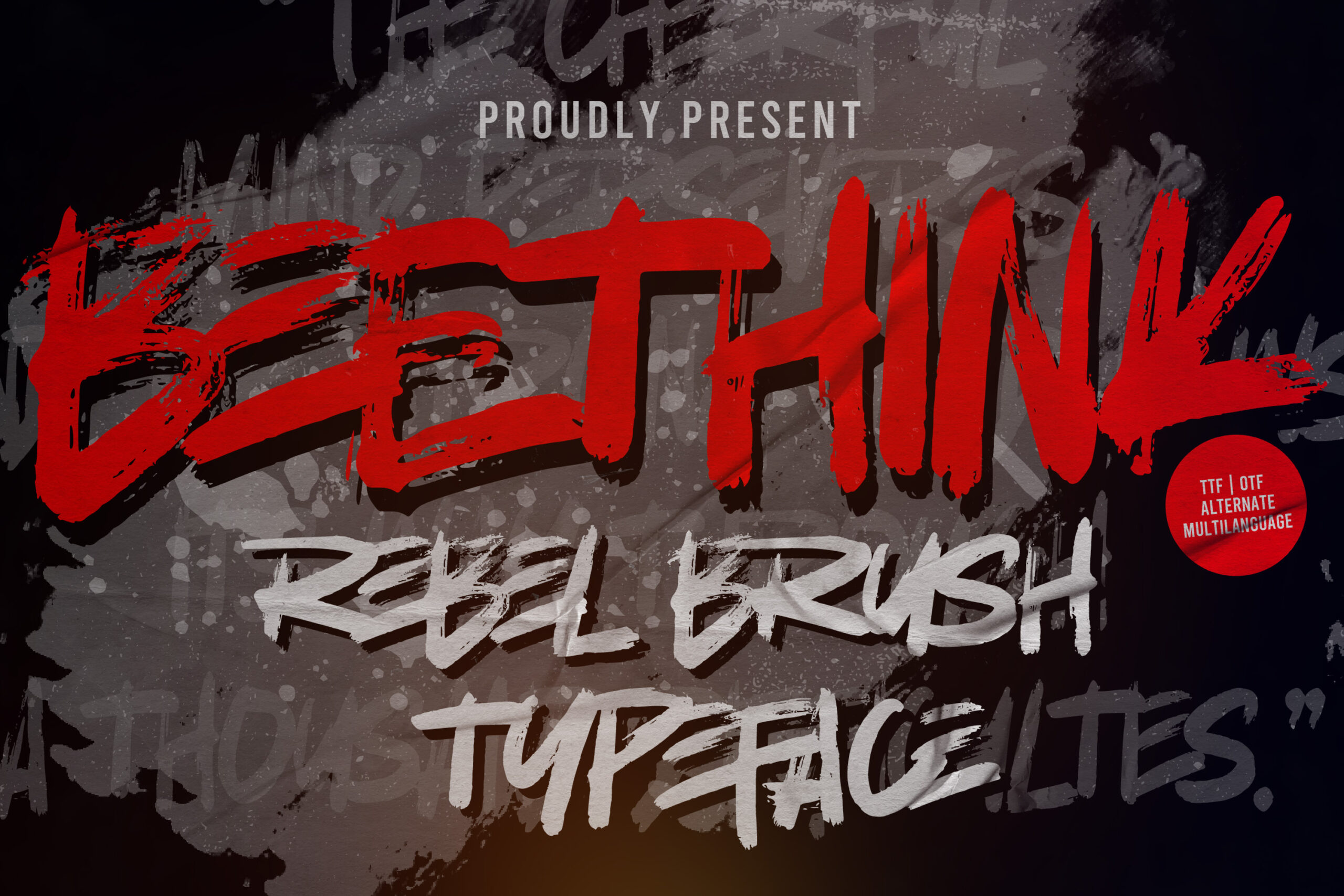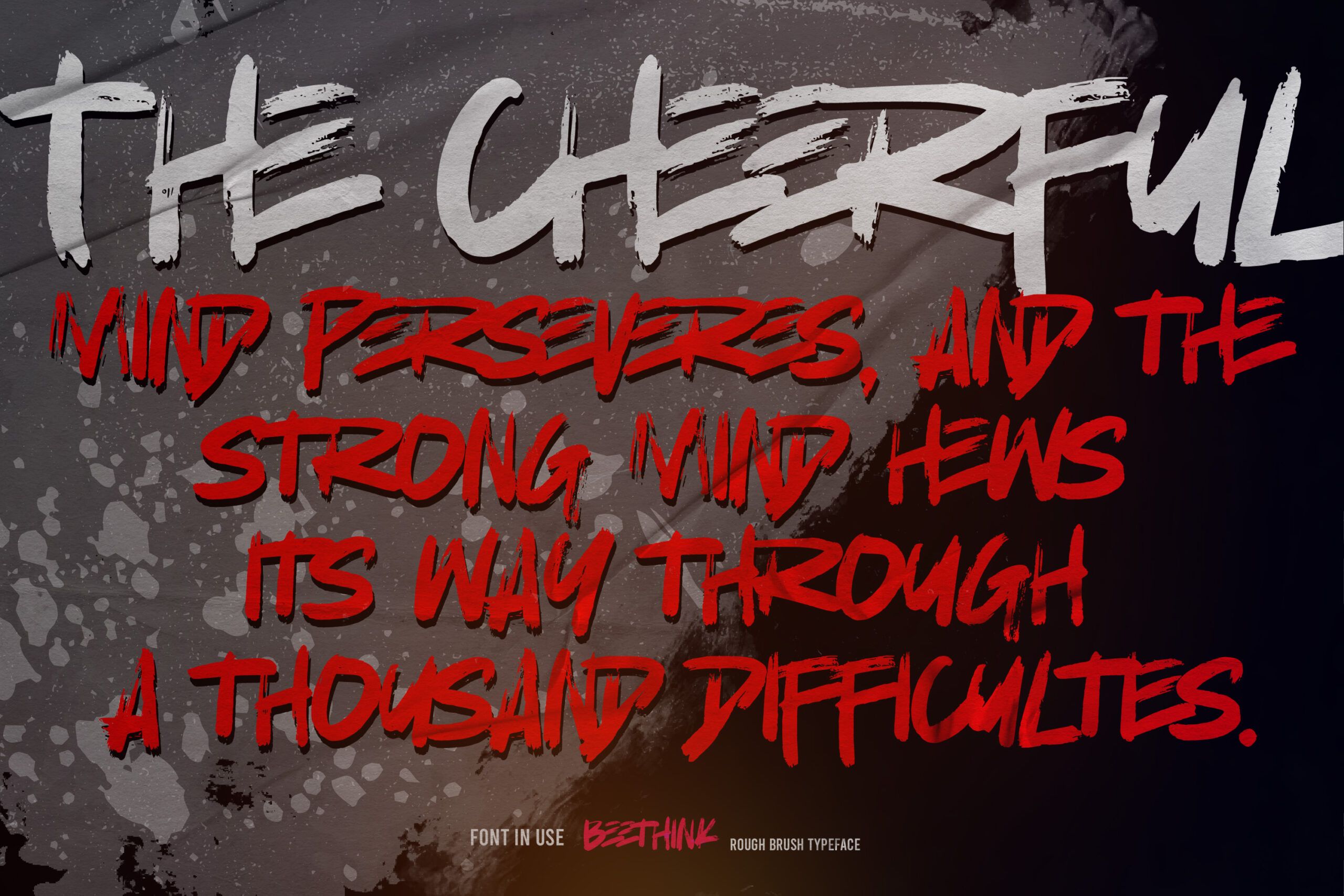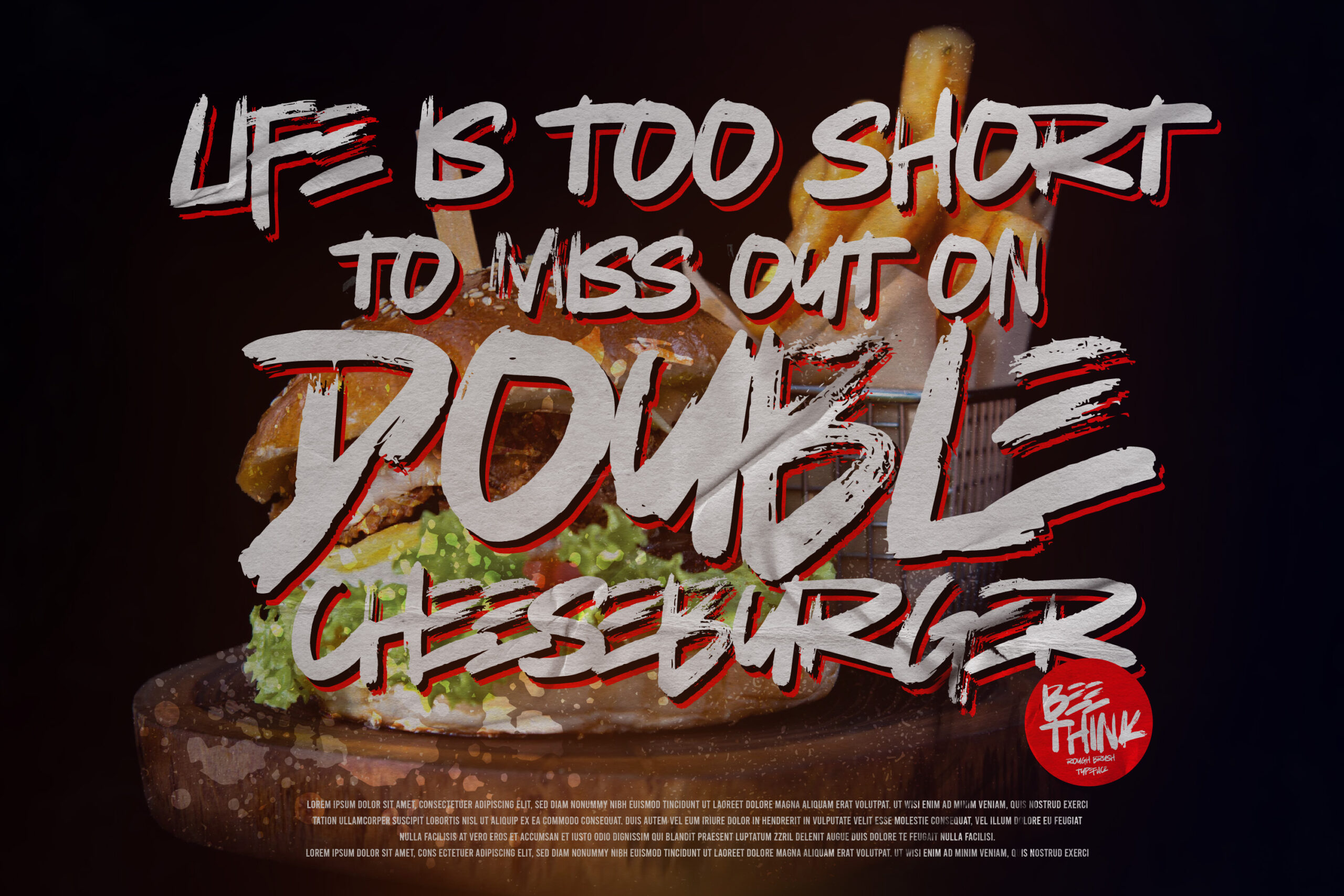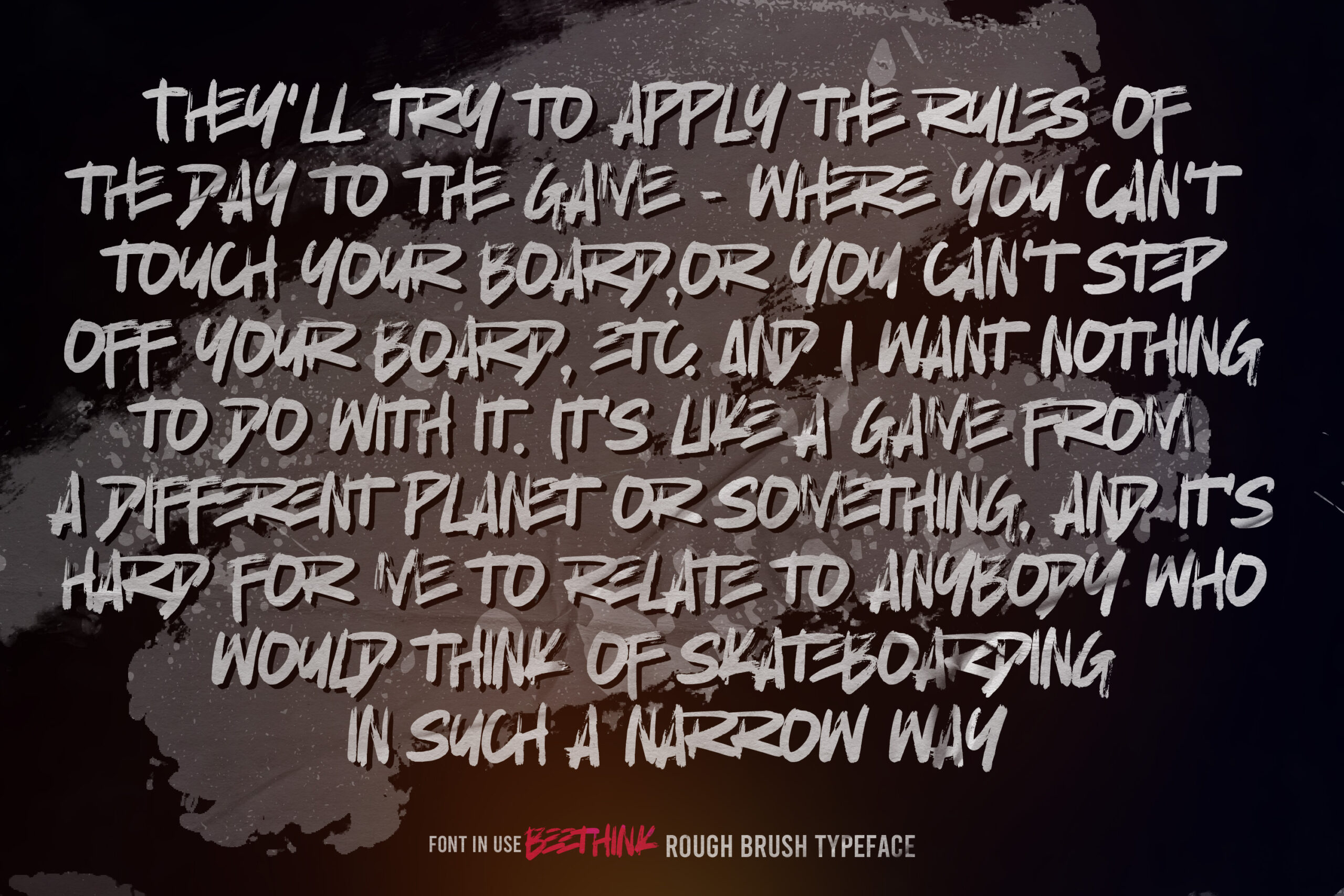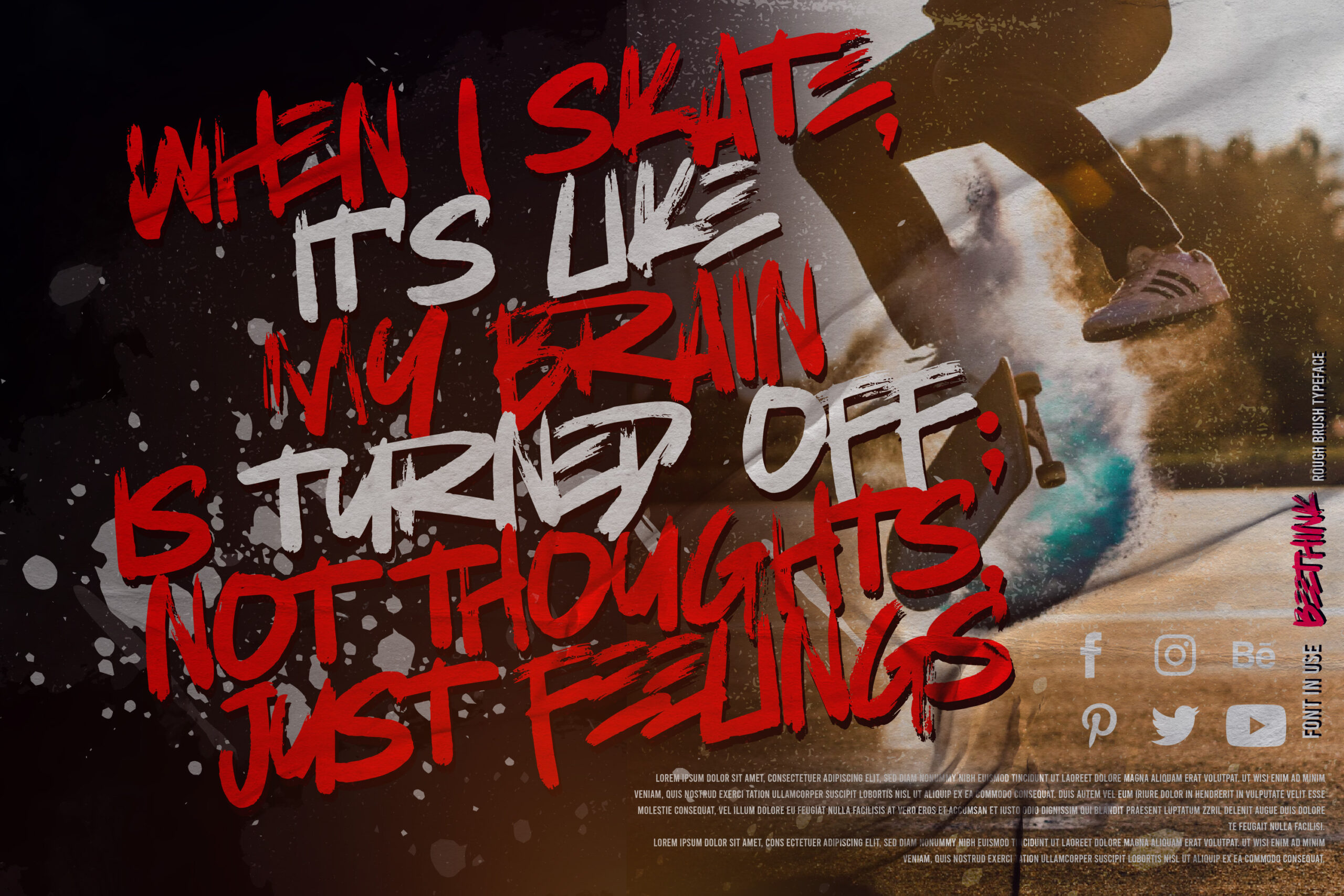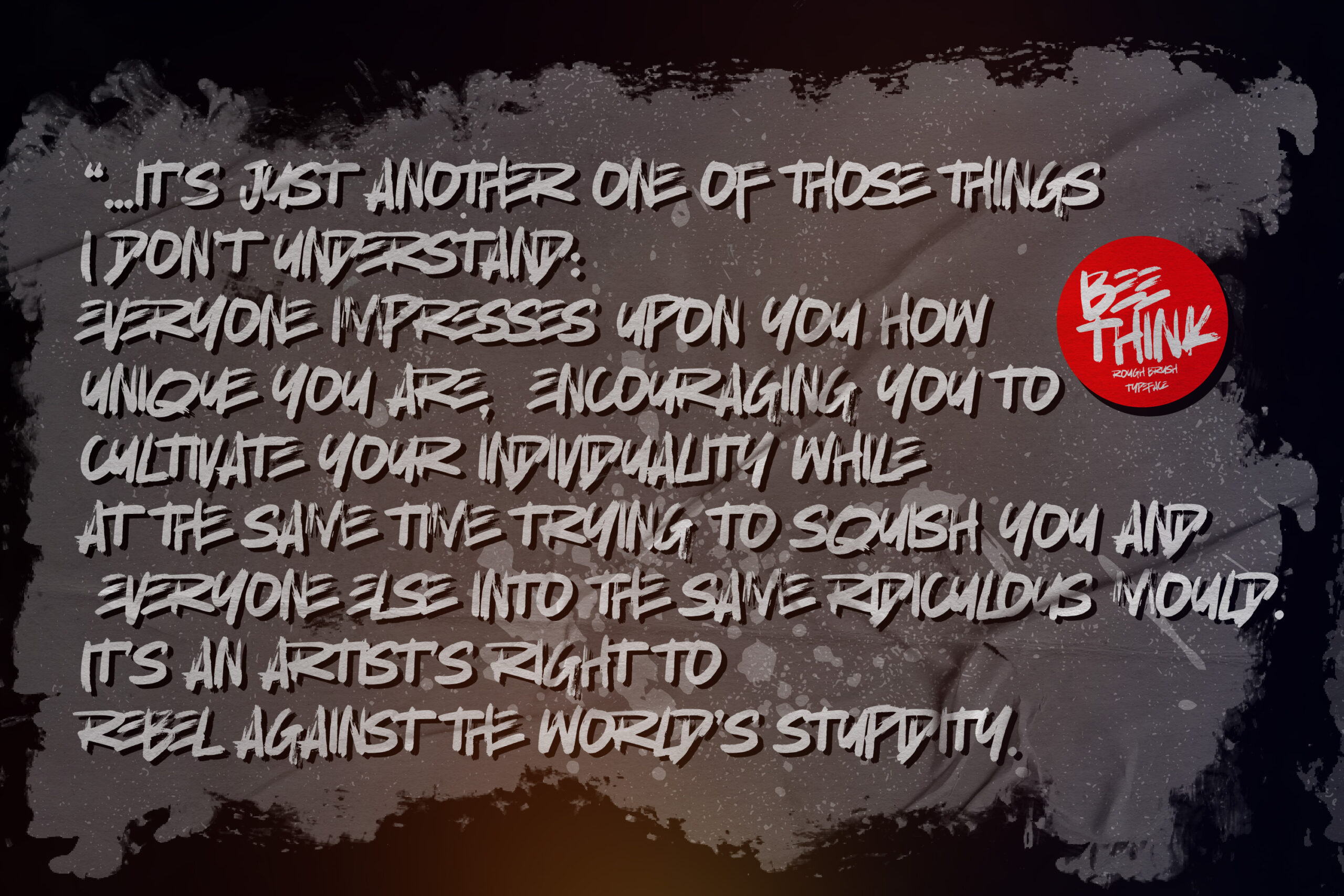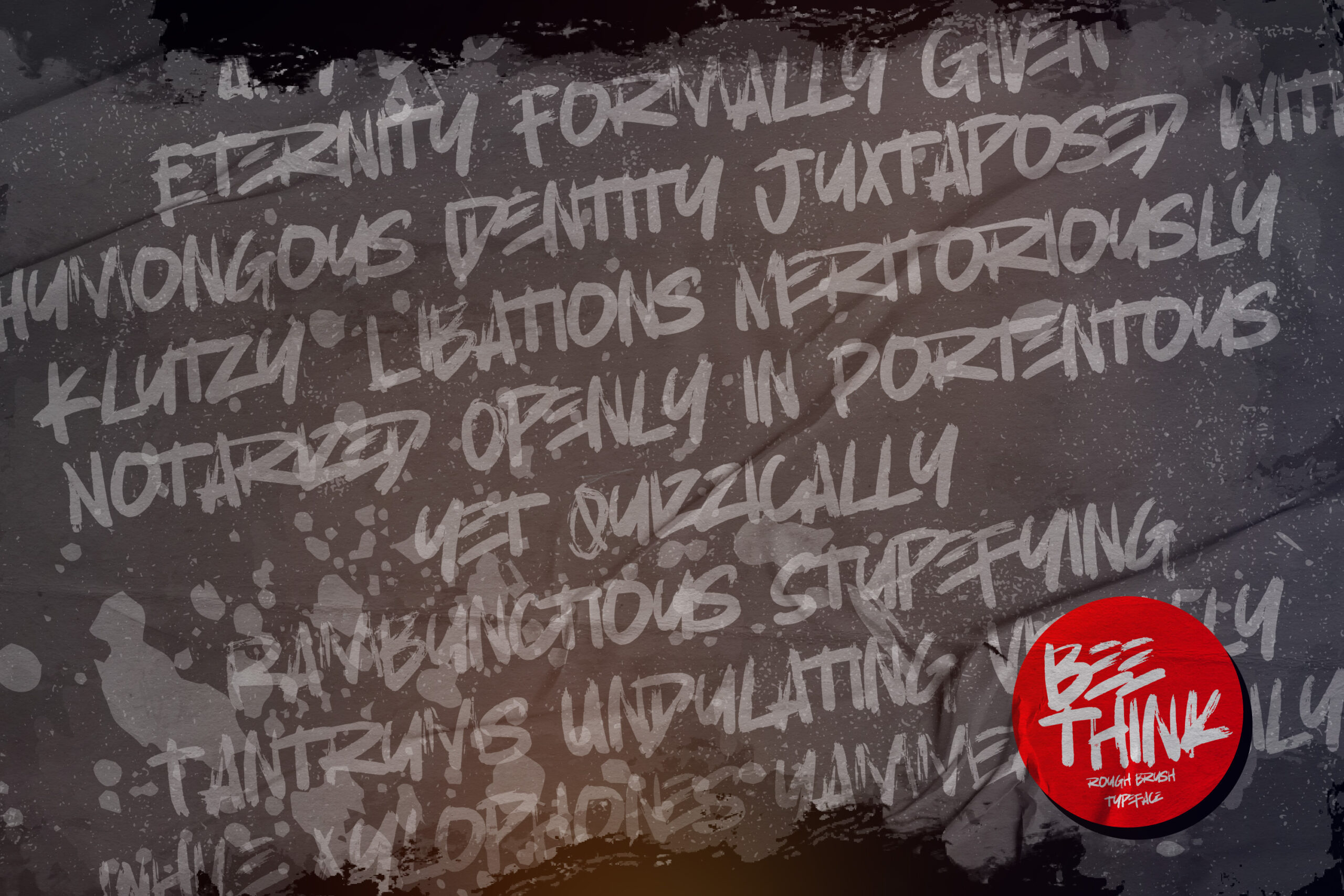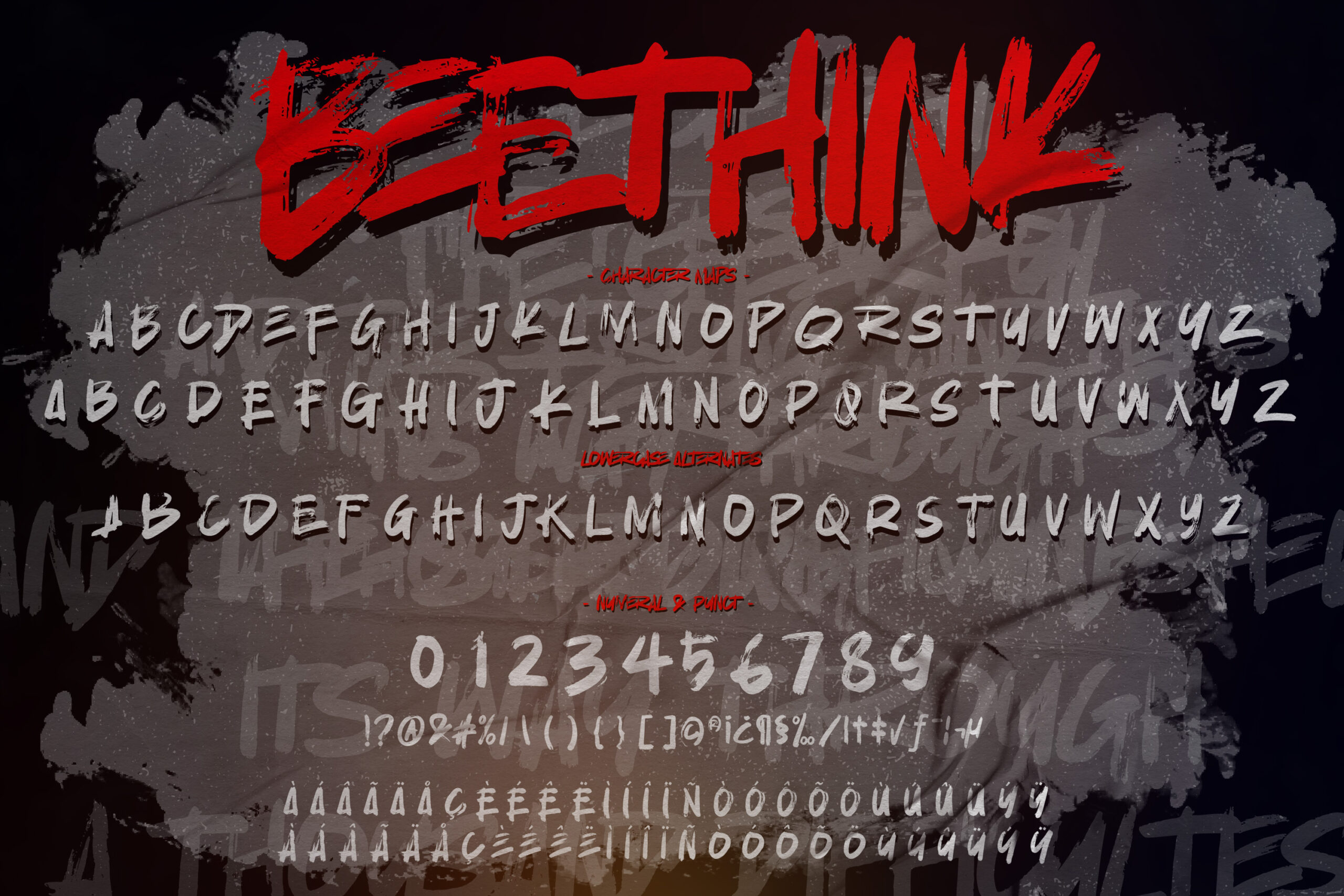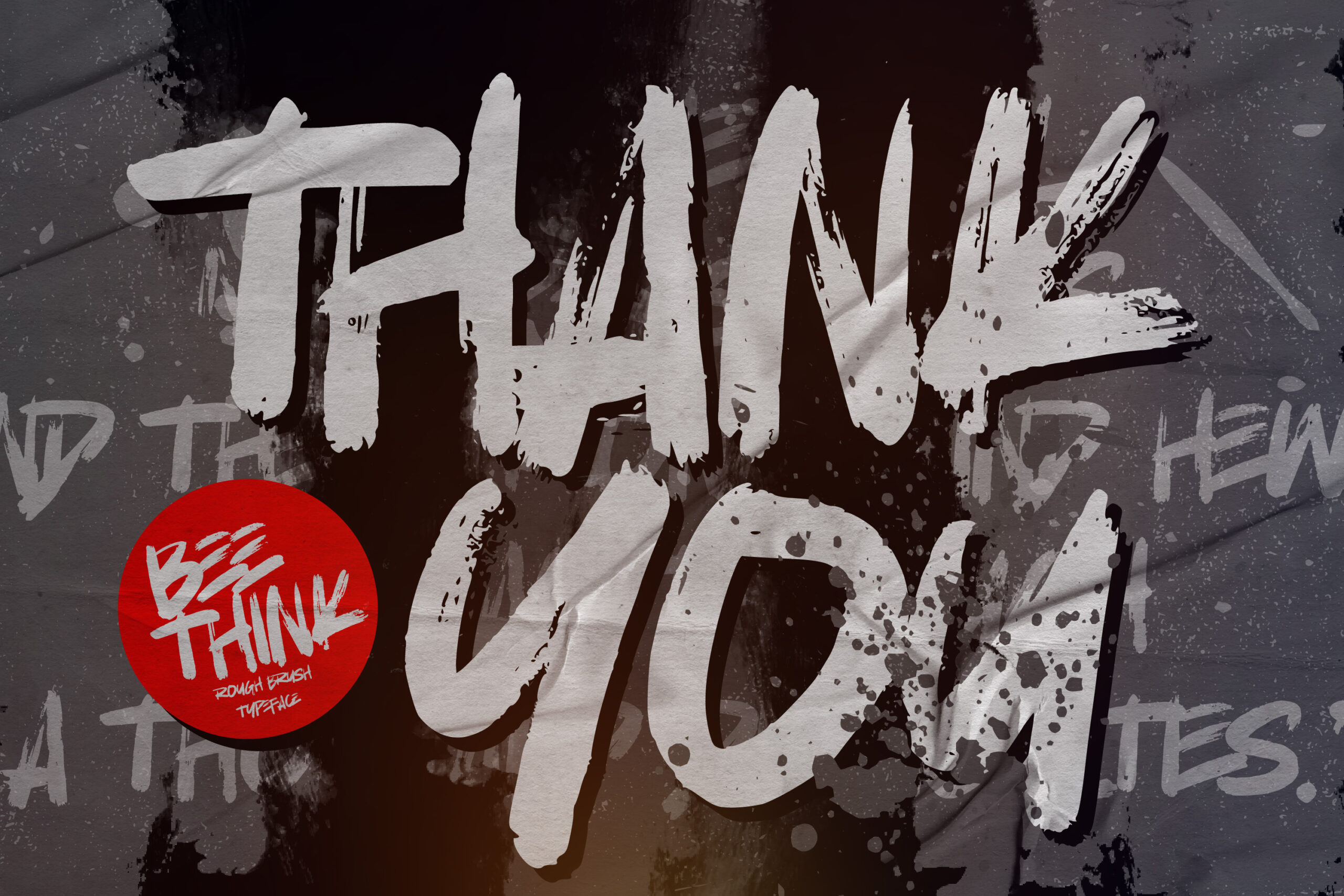
BEETHINK – Rebel Rough Brush Typeface is an Modern brush Font that is written casually and quickly.
That is why BEETHINK has a authentic, and strong characteristic more natural look.
BEETHINK Perfect for designs, branding projects, Logo design,Quotes product packaging and another Project that require cool strong brush font.